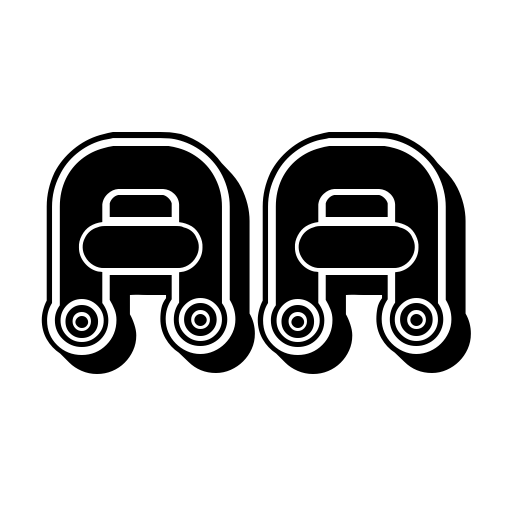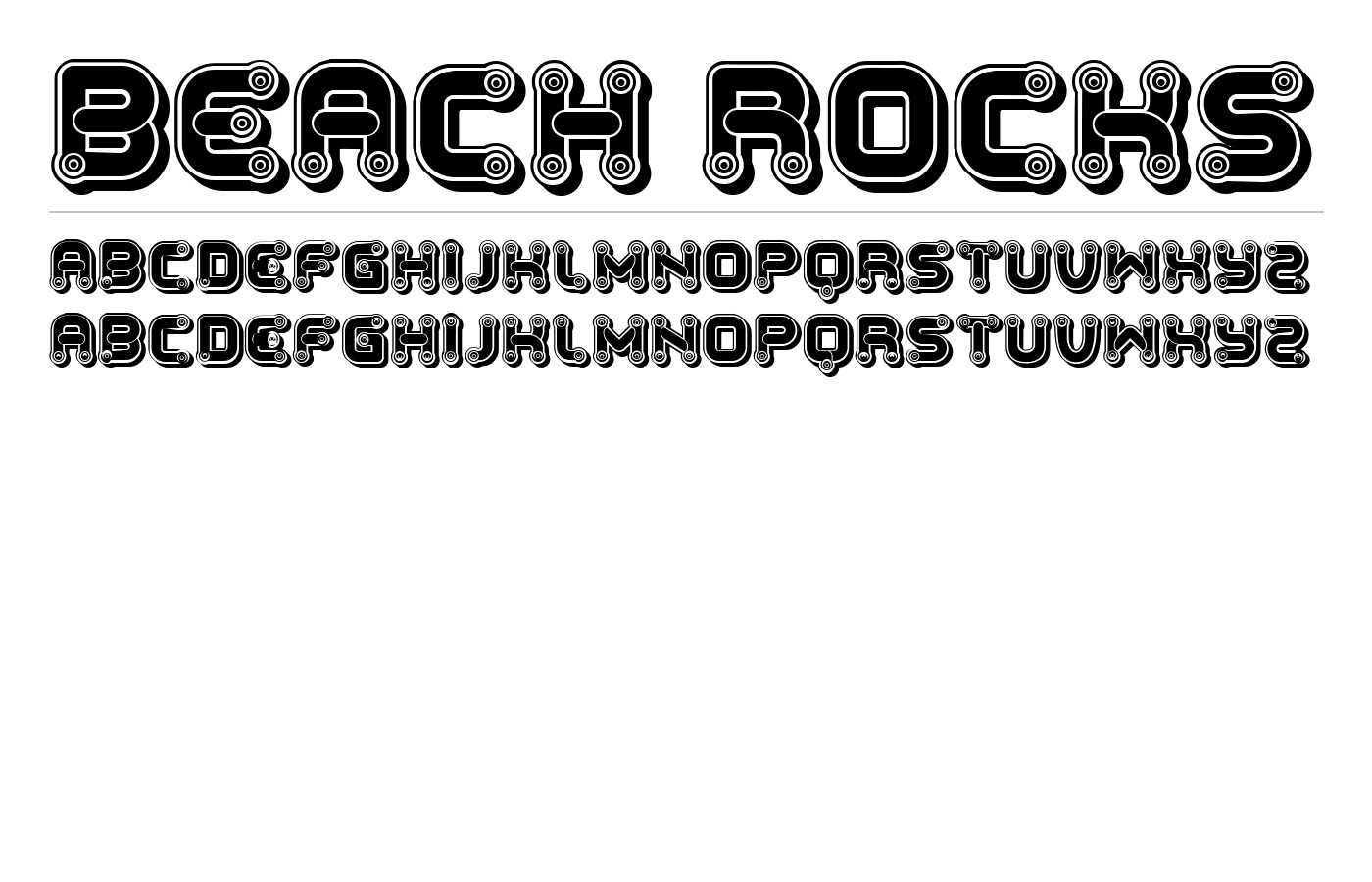
Beach Rocks is a bold, playful sans serif display font distinguished by its layered, rounded letterforms and circular decorative elements that create a dynamic, modern vibe. Its chunky weight and unique outlining make it perfect for eye-catching logos, posters, and branding that aim for a fun, energetic, and youthful feel. This font works especially well for creative projects looking to convey a sense of vibrancy and contemporary style.
Beach Rocks Font
About Beach Rocks Font